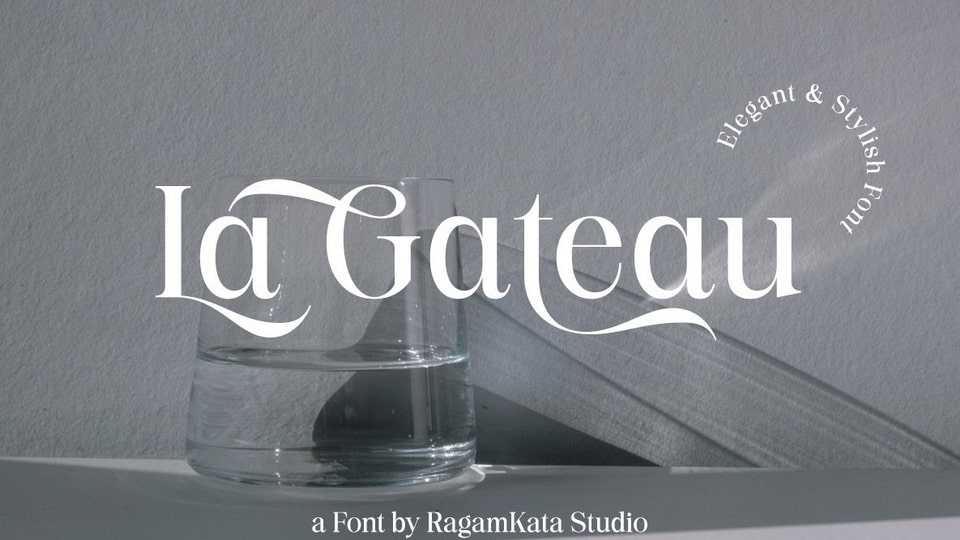
Download La Gateau font, a classic, elegant and stylish serif typeface that will make your project even more stunning. A graceful typeface, with a perfect shape and ligatures will make your design look majestic.